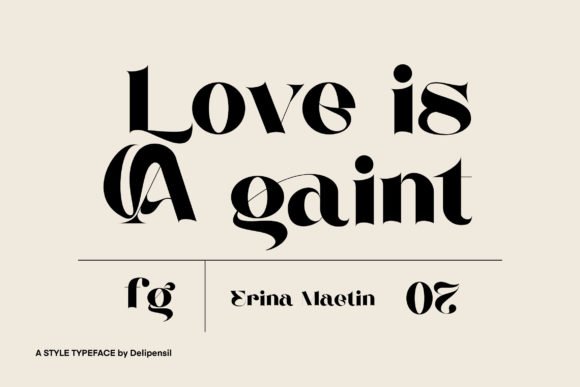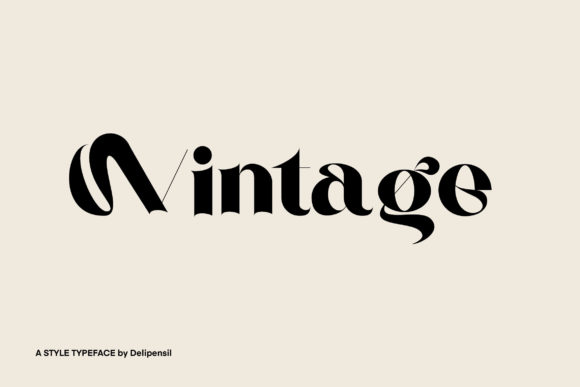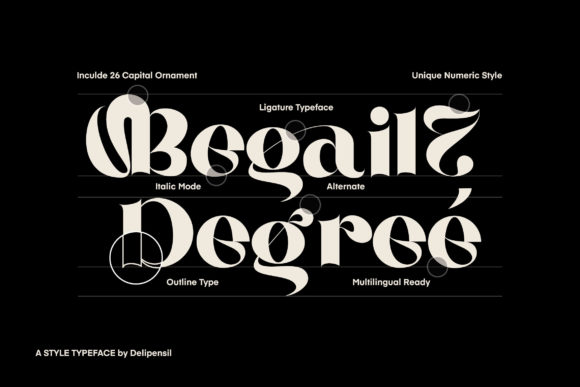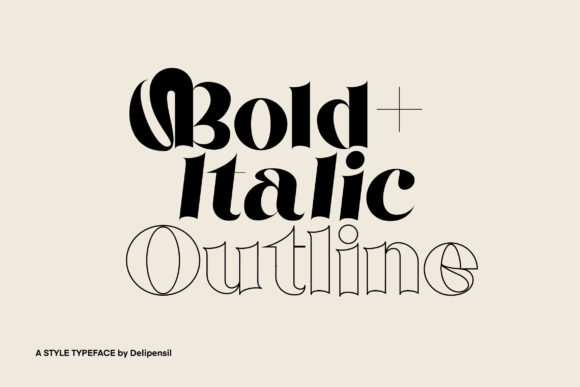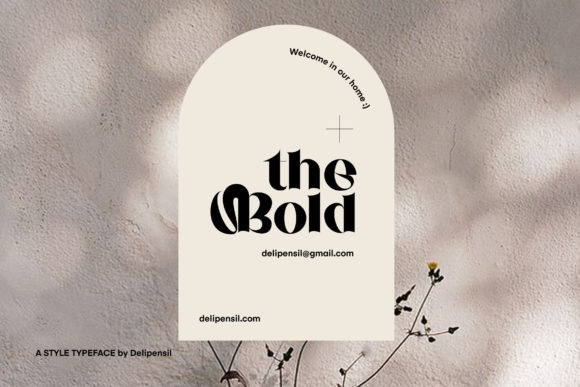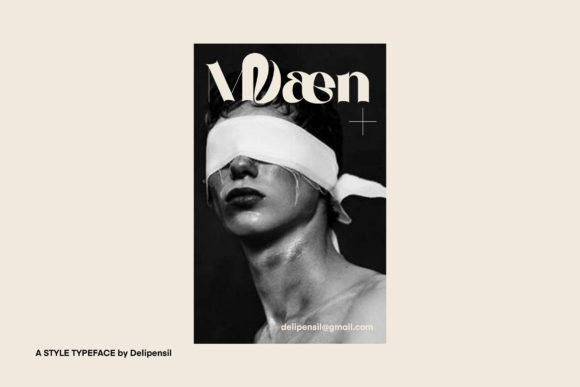
Introducing Aborn Font: Elevate Your Designs with Trendy Chic
In the world of typography, a good font can make all the difference in elevating your designs from ordinary to extraordinary. If you’re a designer, crafter, or DIY enthusiast looking for a stylish and versatile serif font, look no further than Aborn Font. This trendy and chic font is designed to add a touch of sophistication and elegance to your creations, and we’re excited to dive into its features and benefits.
What is Aborn Font?
Aborn is a beautifully crafted serif font that exudes a sense of luxury and refinement. Its classic design is perfect for a wide range of projects, from branding and advertising to crafting and scrapbooking. With its clean lines, elegant curves, and precise letterforms, Aborn Font is sure to impress.
Key Features of Aborn Font
- Trendy and chic design: Aborn Font boasts a stylish and modern aesthetic that’s perfect for designs that require a touch of sophistication.
- Serif font: Classic design with clean lines, elegant curves, and precise letterforms.
- Versatile: Suitable for a wide range of projects, from branding and advertising to crafting and scrapbooking.